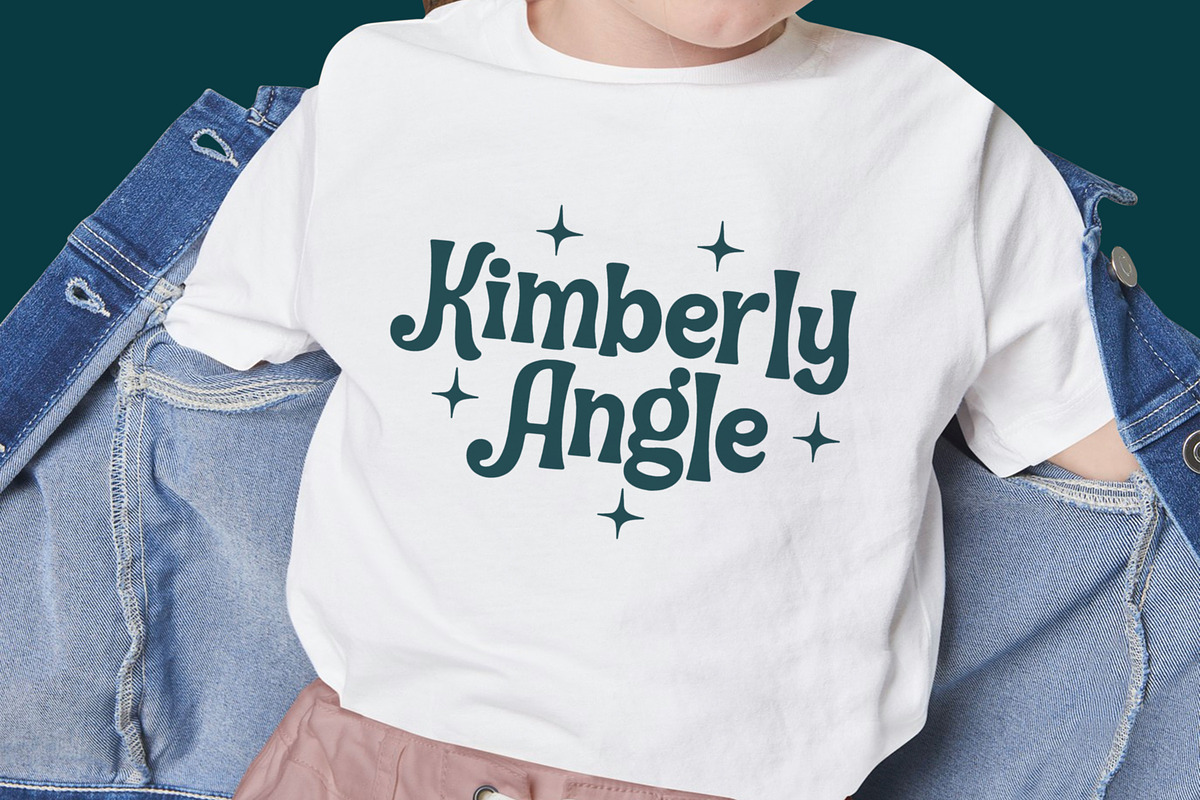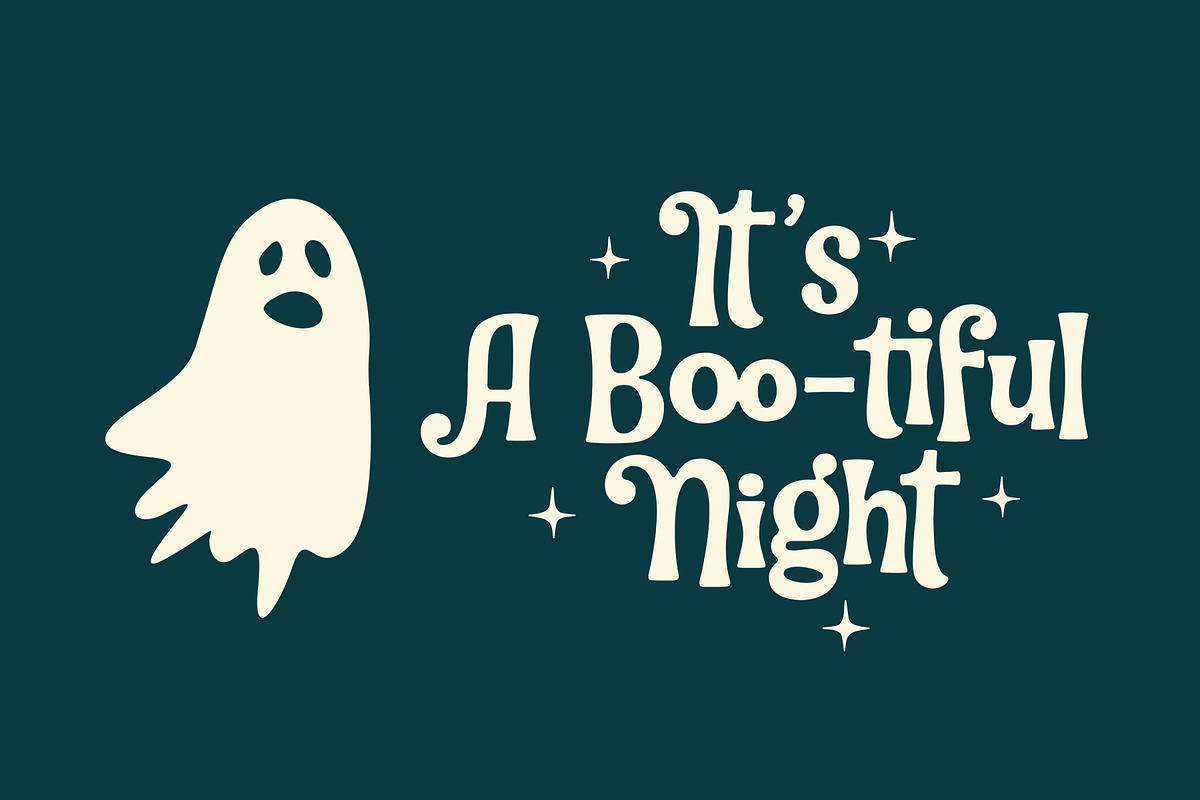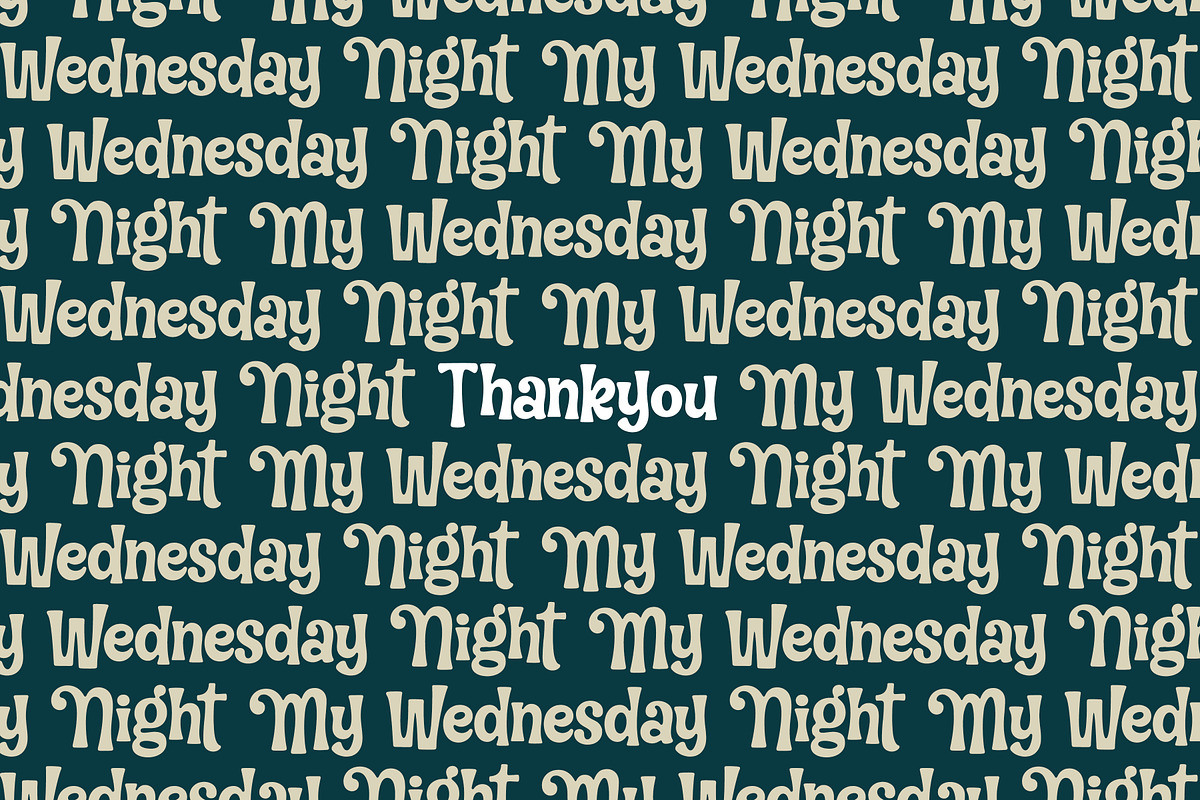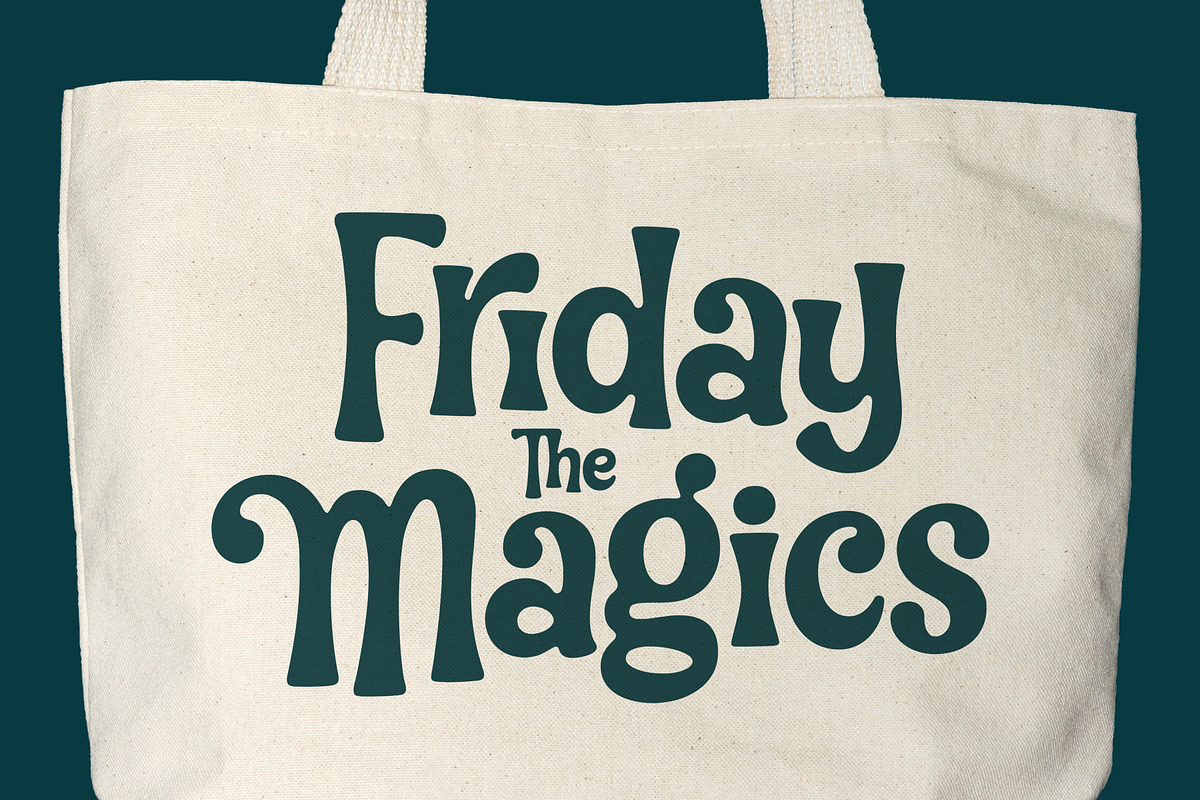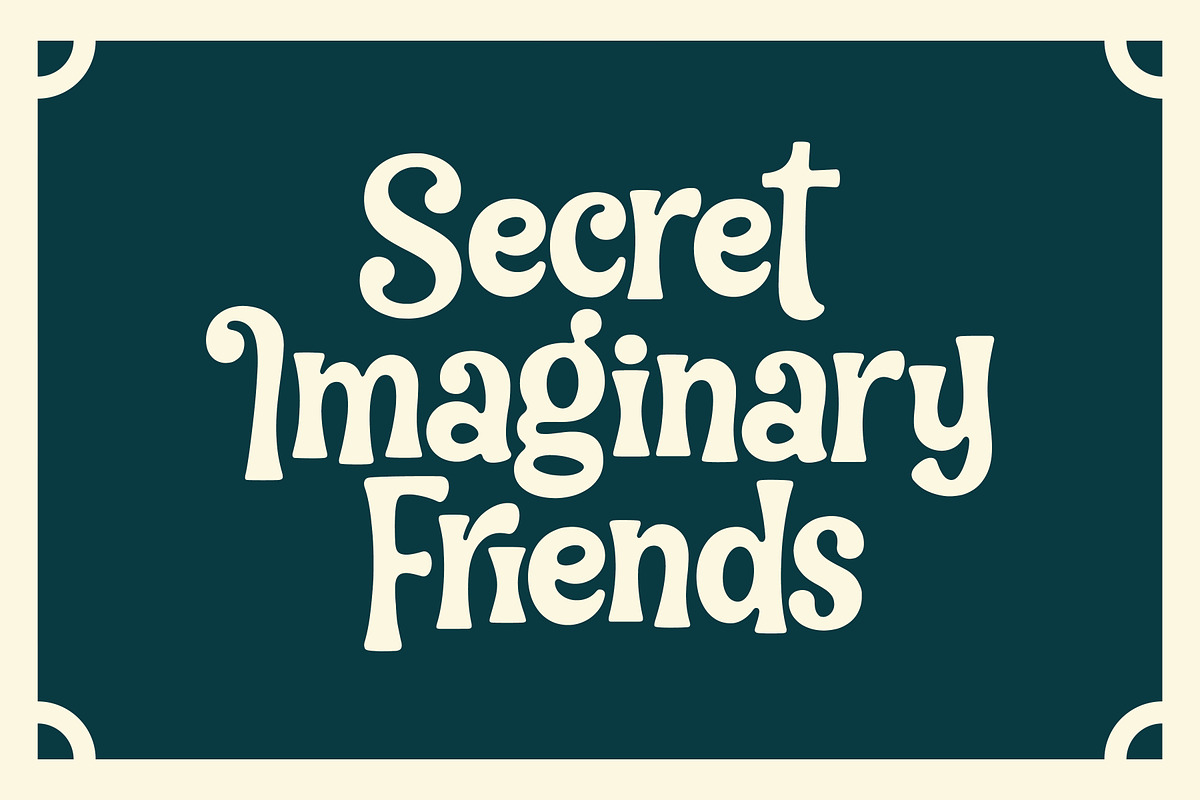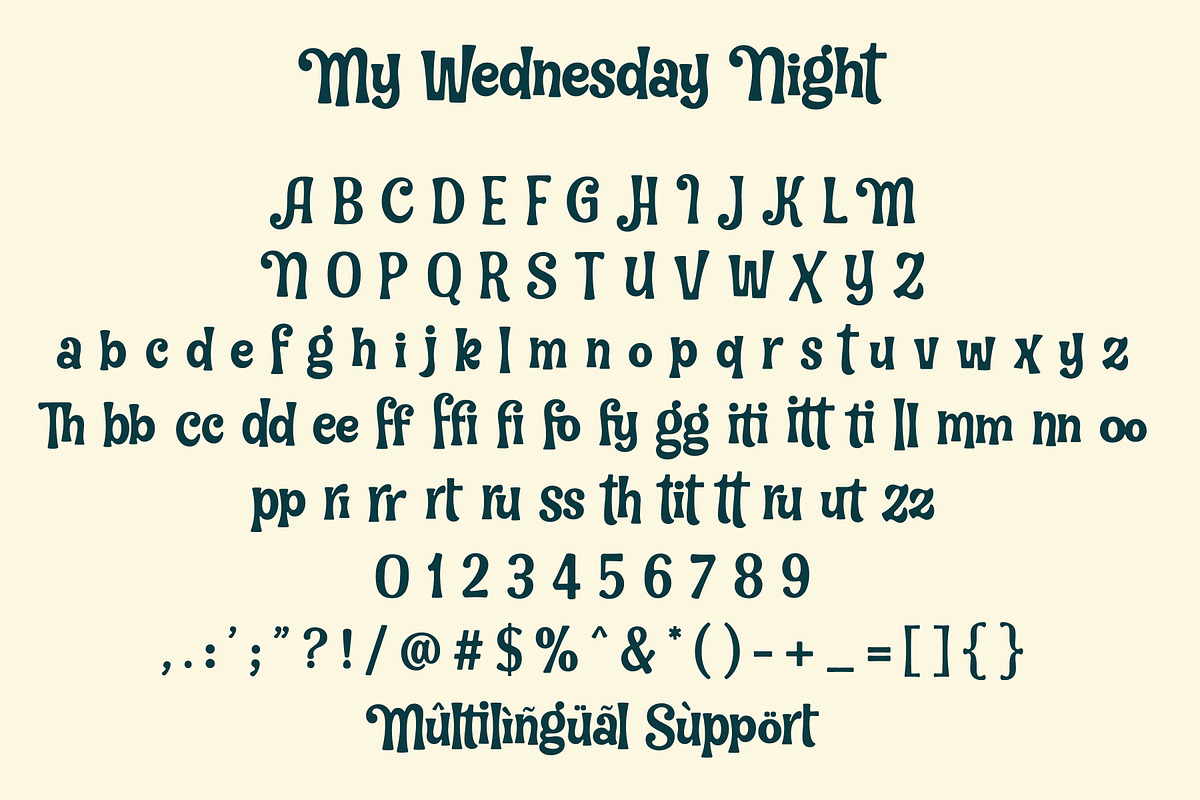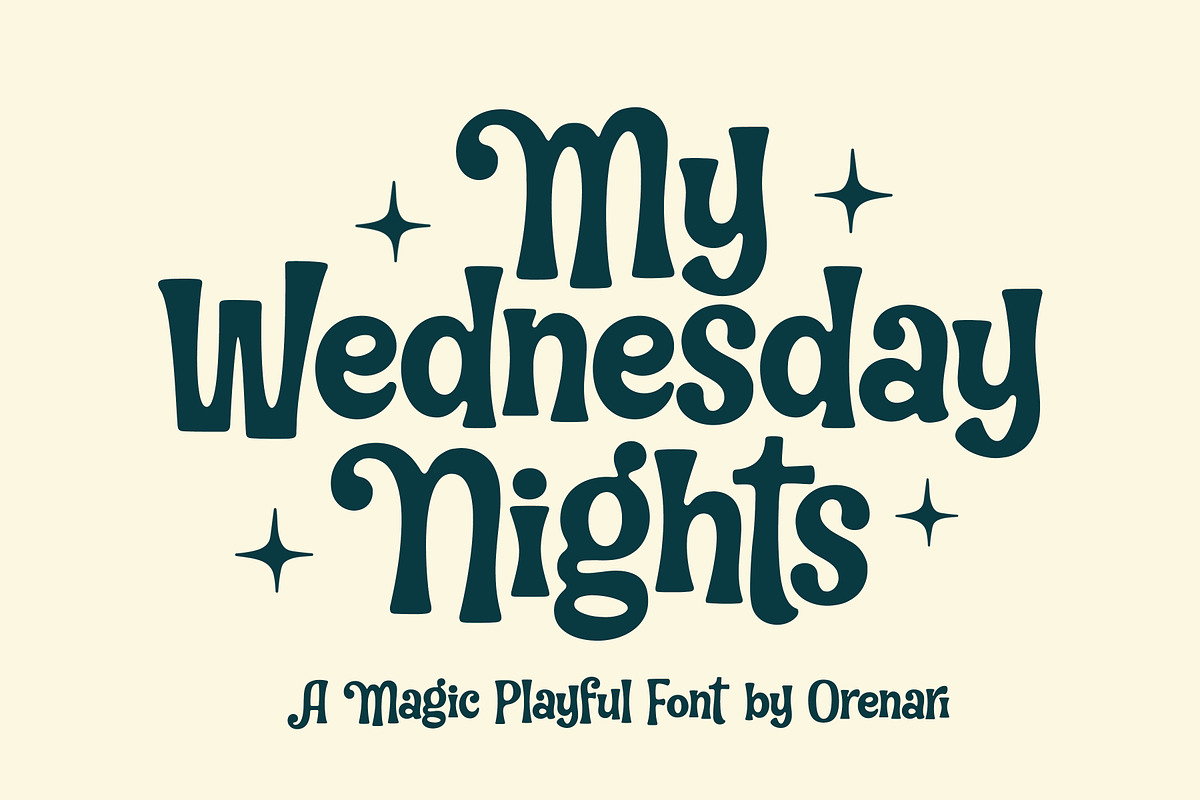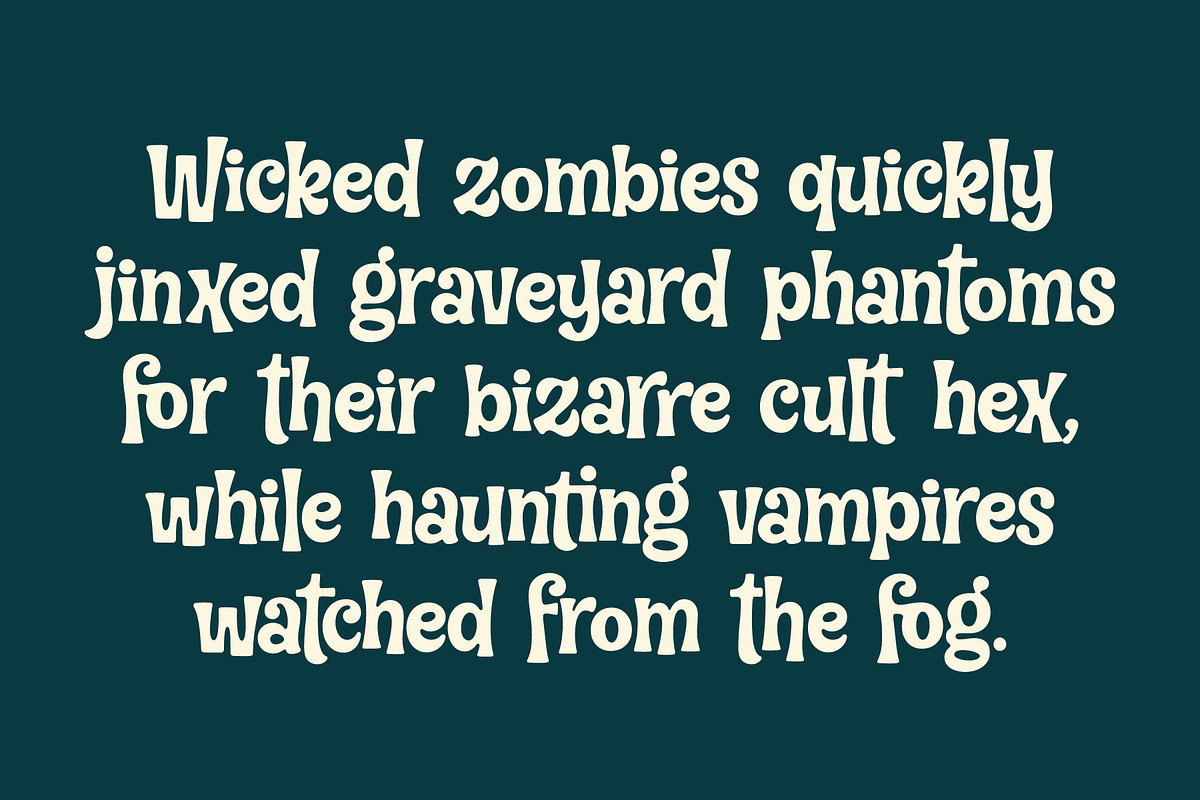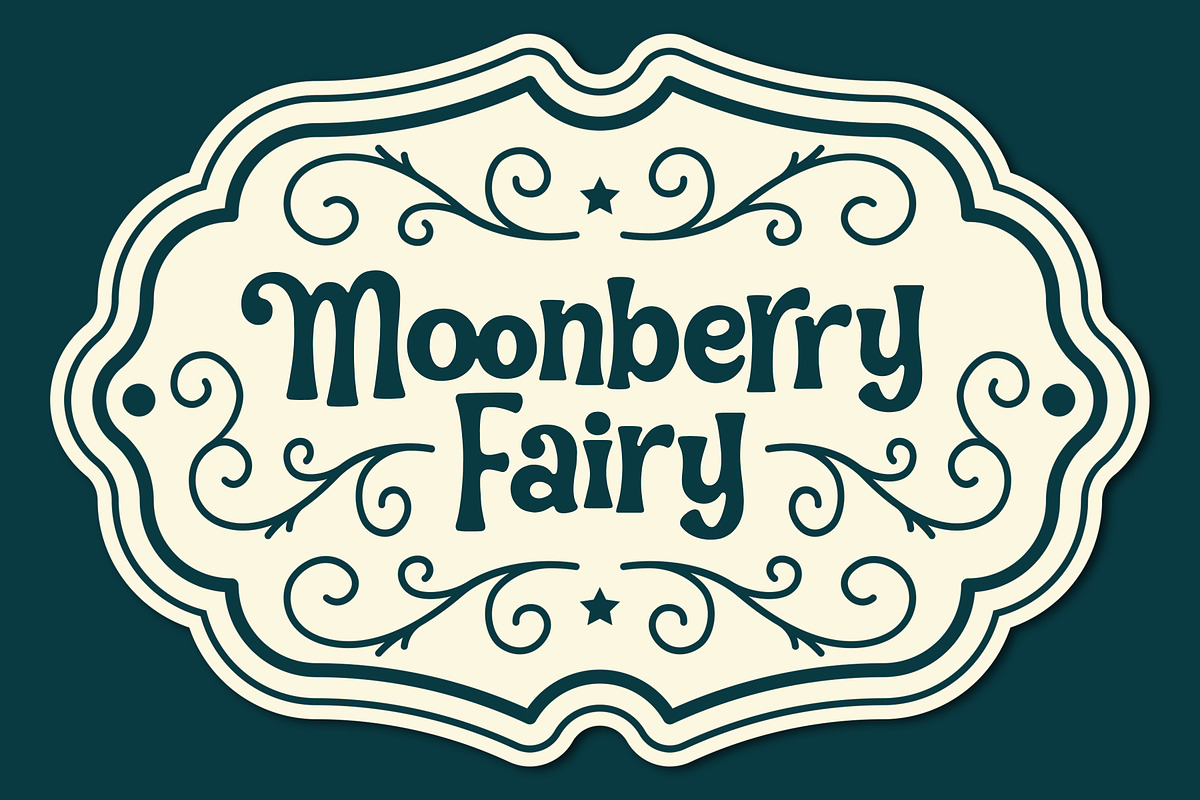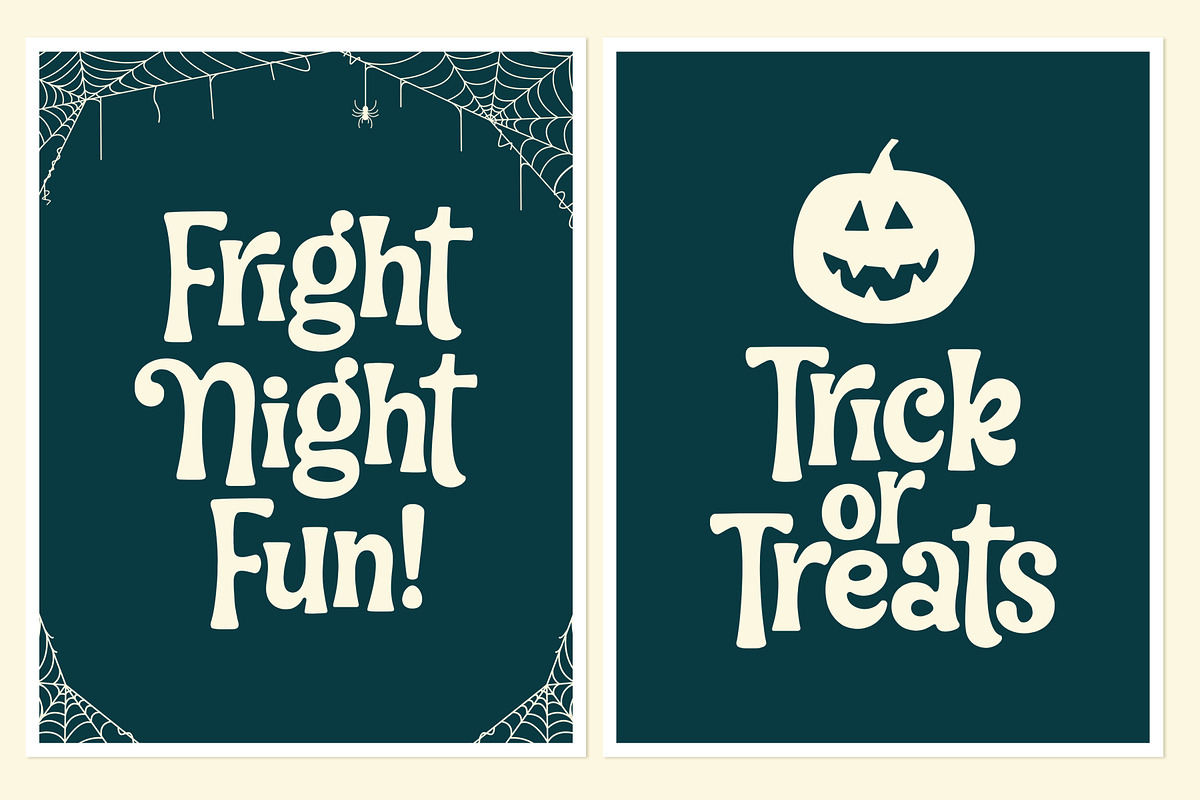
My Wednesday Night
My Wednesday Night is a magic playful font by Orenari with a quirky horror vibe. Featuring bold strokes, whimsical curves, and slightly eerie forms, this font blends fun and spookiness into one unique style. Perfect for Halloween projects, spooky invitations, posters, children’s book titles, or any design that needs a touch of playful mystery.